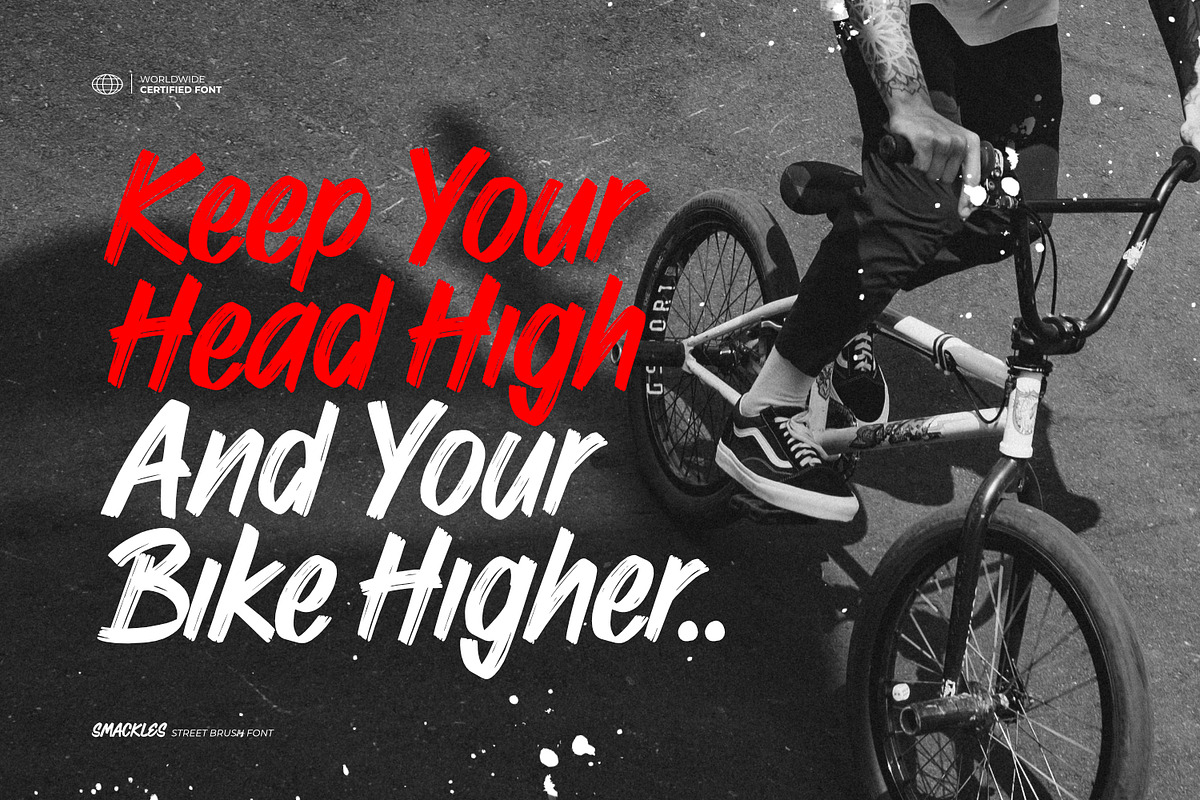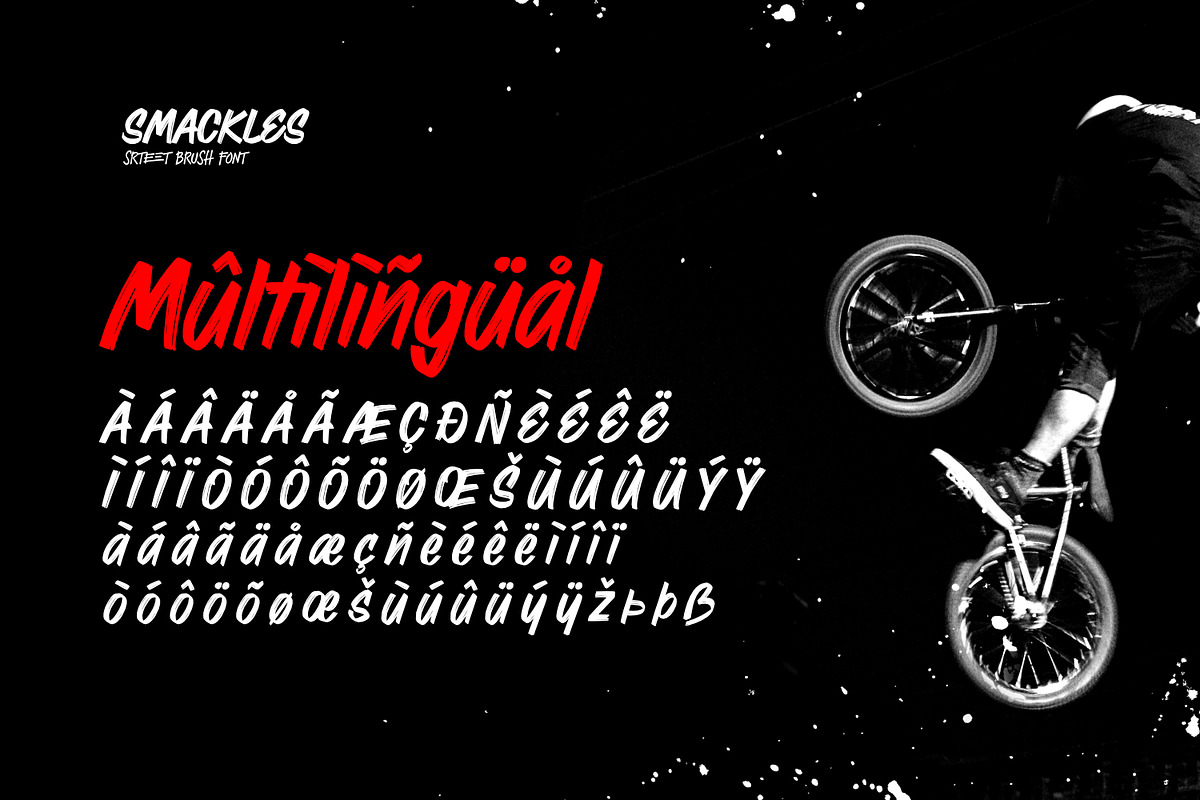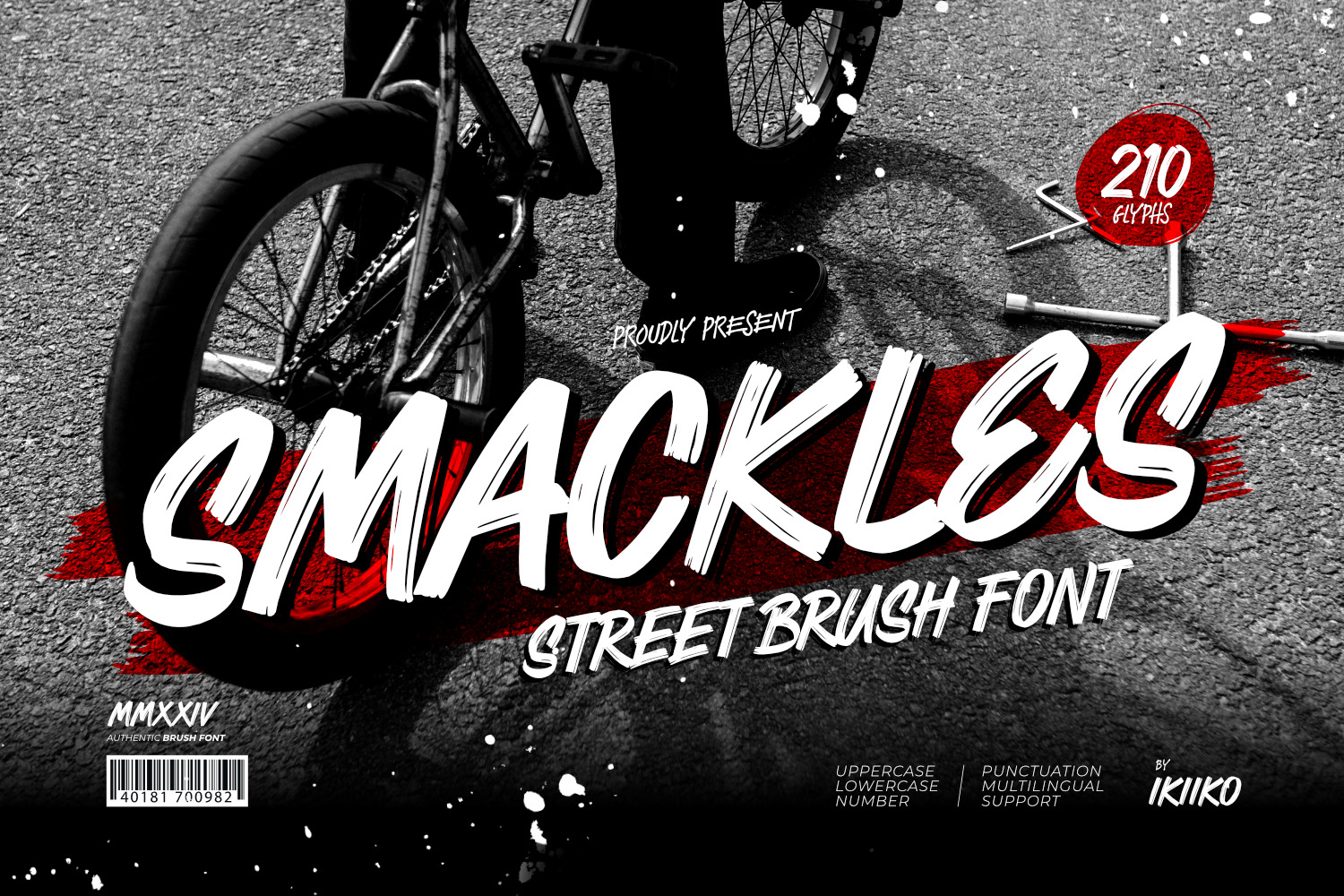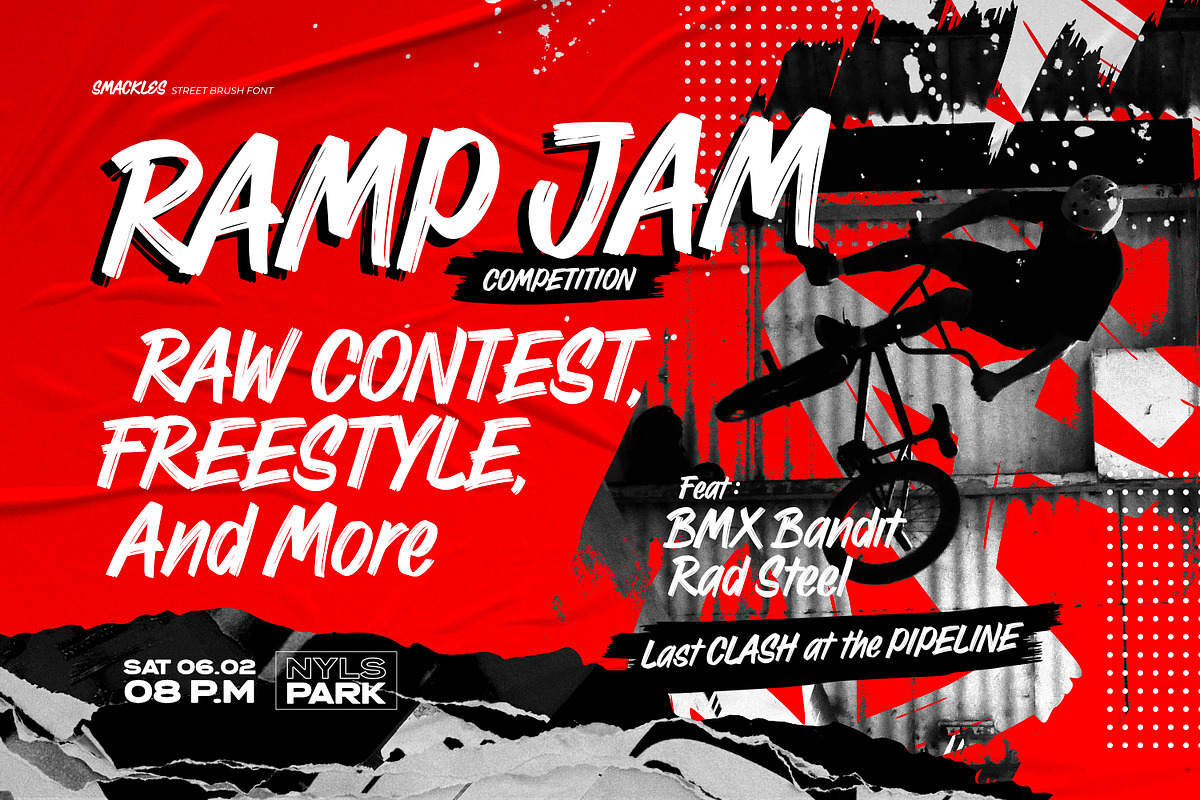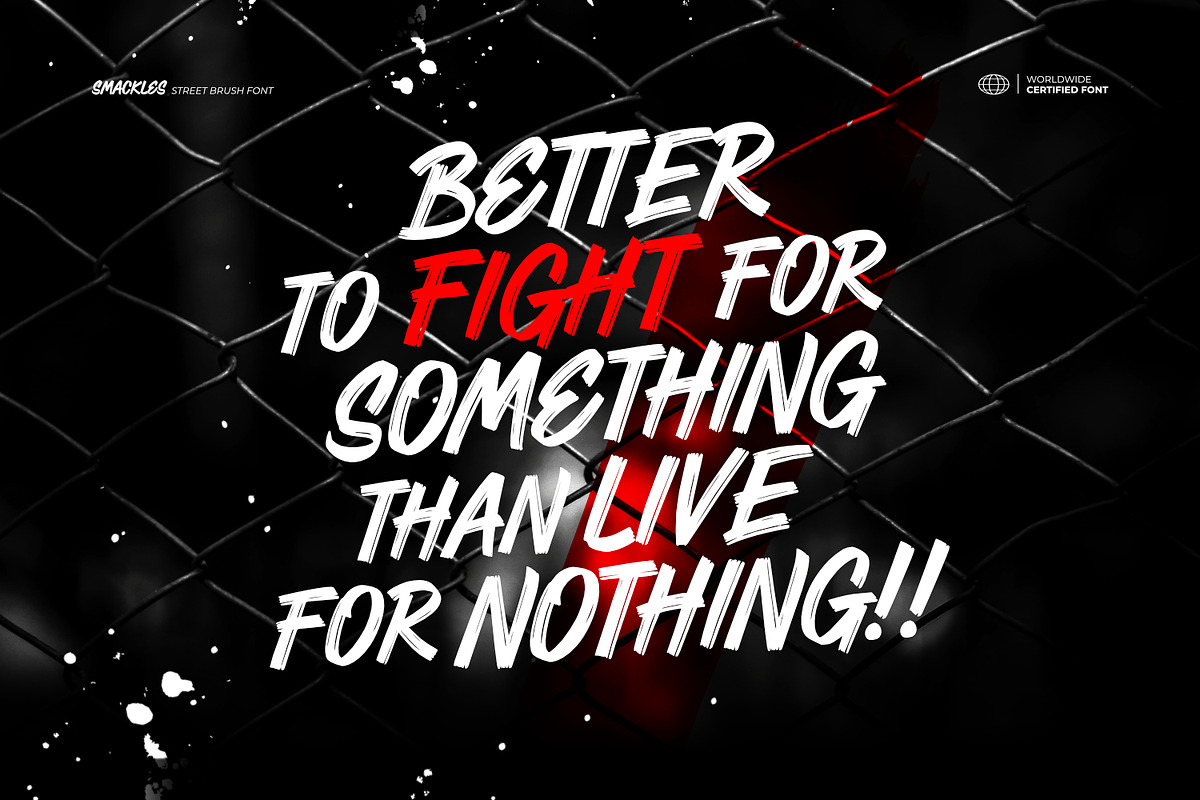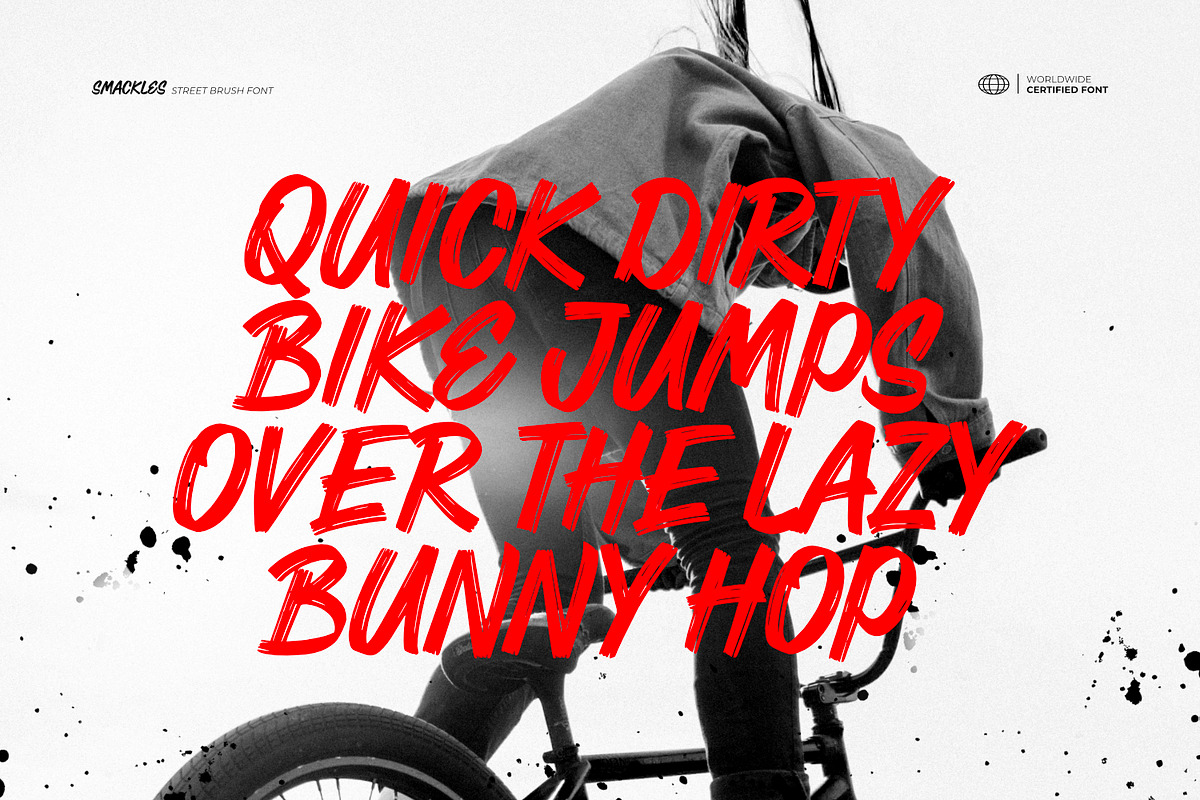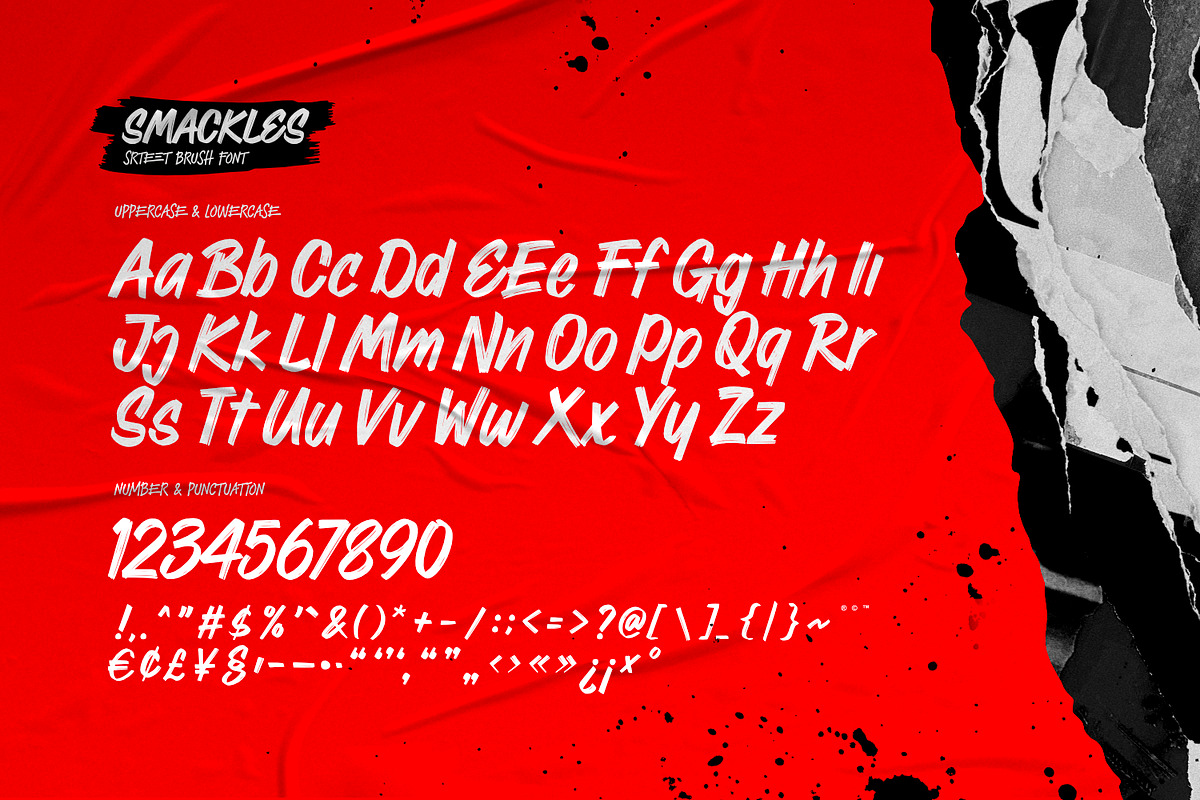
Smackles - Street Brush Font
Proudly present Smackles - Street Brush Font, created by ikiiko.
Smackles is a dynamic and edgy typeface that bring an authentic street style to your projects. Inspired by the raw energy of the streets, "Smackles" is perfect for any creative project that demands a bold and spirited touch.
The rough brush strokes add a handmade feel, making each letter unique and impactful. This font emphasizes a genuine brush font appearance, capturing the essence of street culture and offering a fresh, contemporary style that stands out in any context. It's especially well-suited for identities a rebellious, edgy, and artistic look.
This font is very suitable for making a poster design, street wear brand, movie title, headline, apparel, magazine layout, fashion & quotes, or simply as a stylish text overlay to any background image that creating striking titles and headings that demand attention.